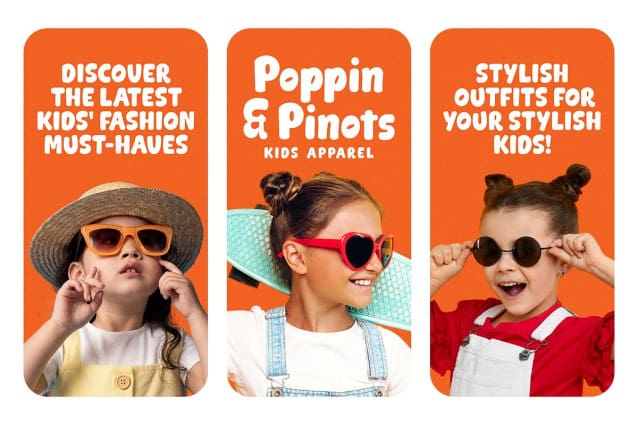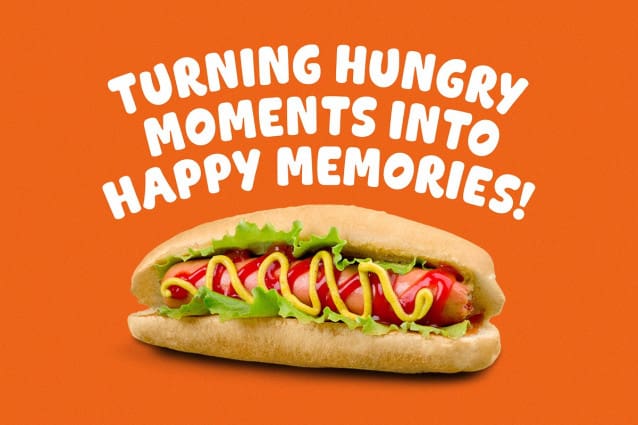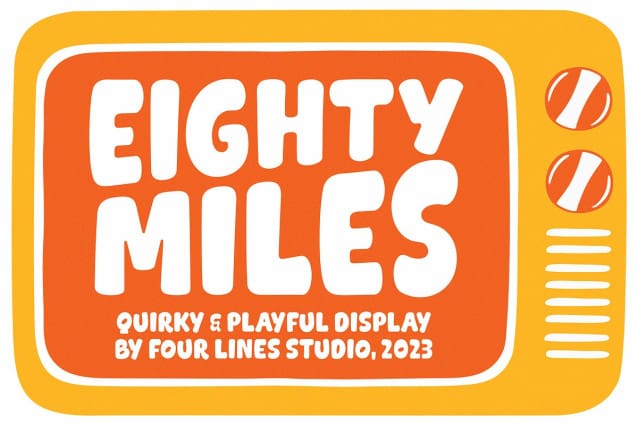
Eighty Miles Font
Eighty Miles font‘s thick and attention-grabbing characters ensure that your message takes center stage. While “Eighty Miles” embraces wild shapes, it never compromises on readability. Each character is carefully crafted to ensure that your audience can enjoy the whimsy without missing a beat. It’s a font that’s as fun to read as it is to look at.